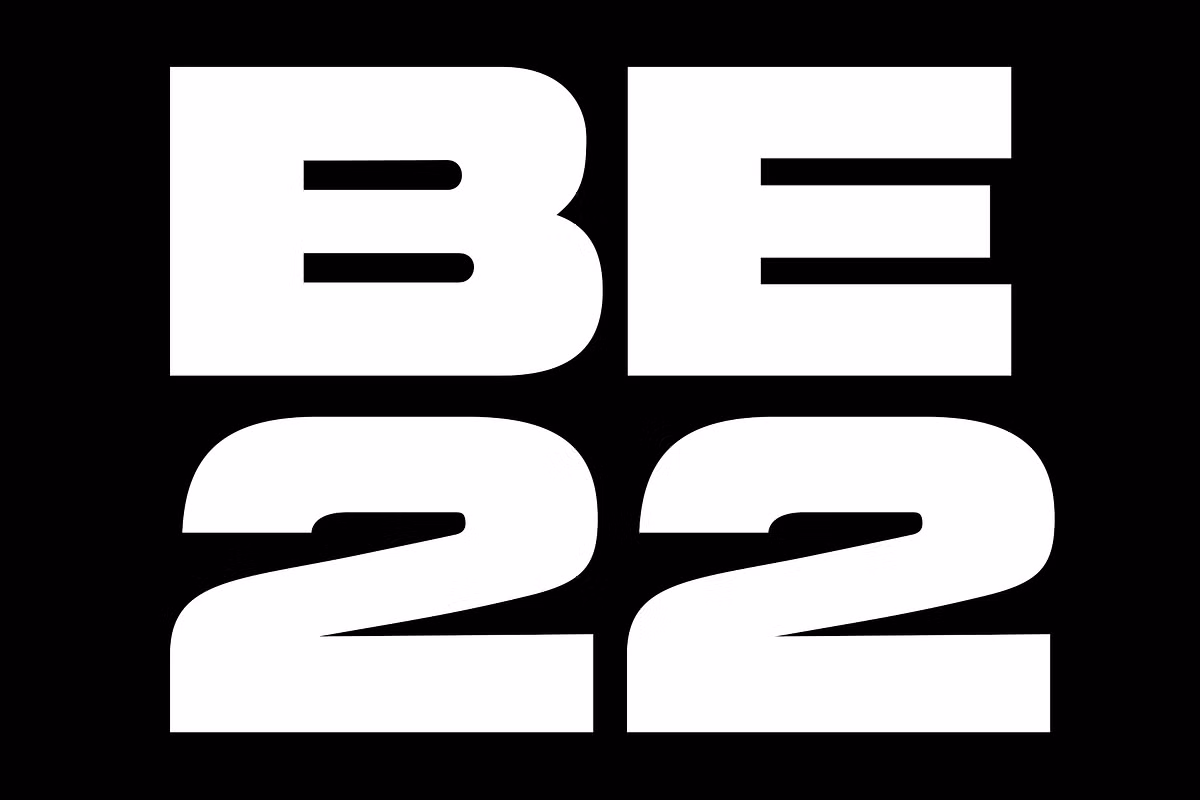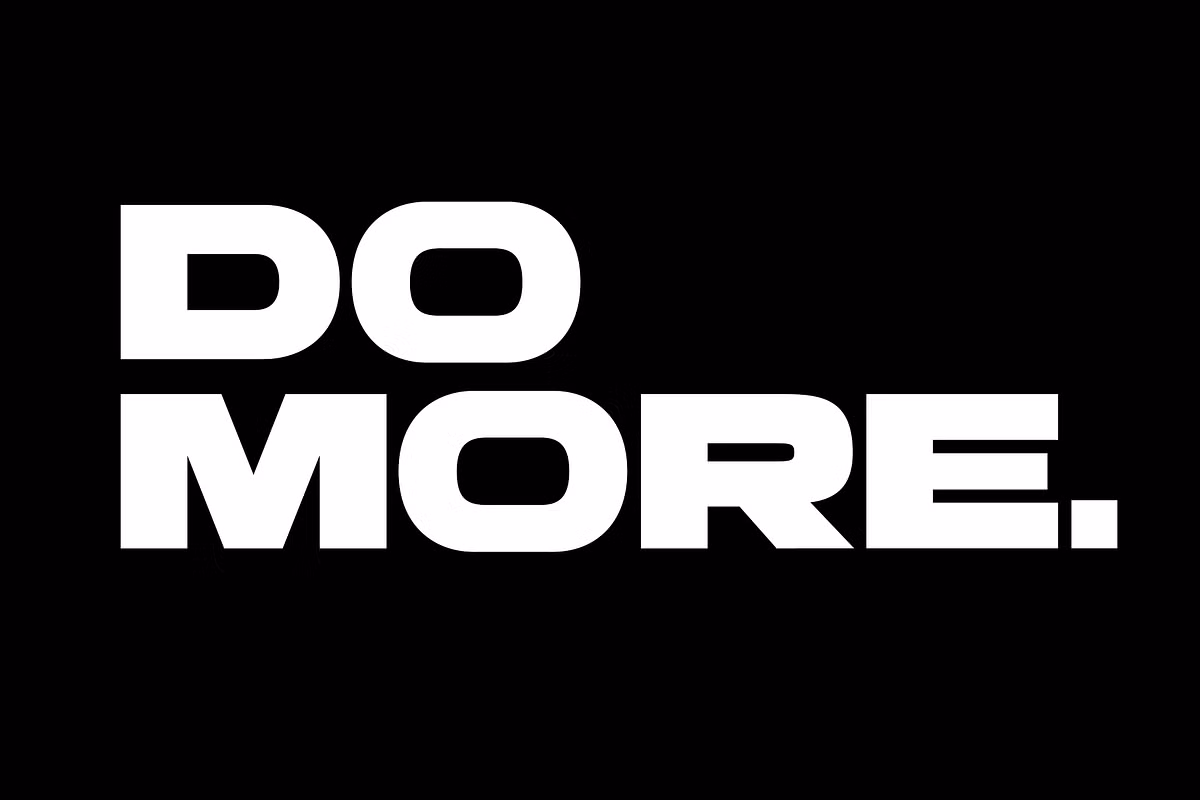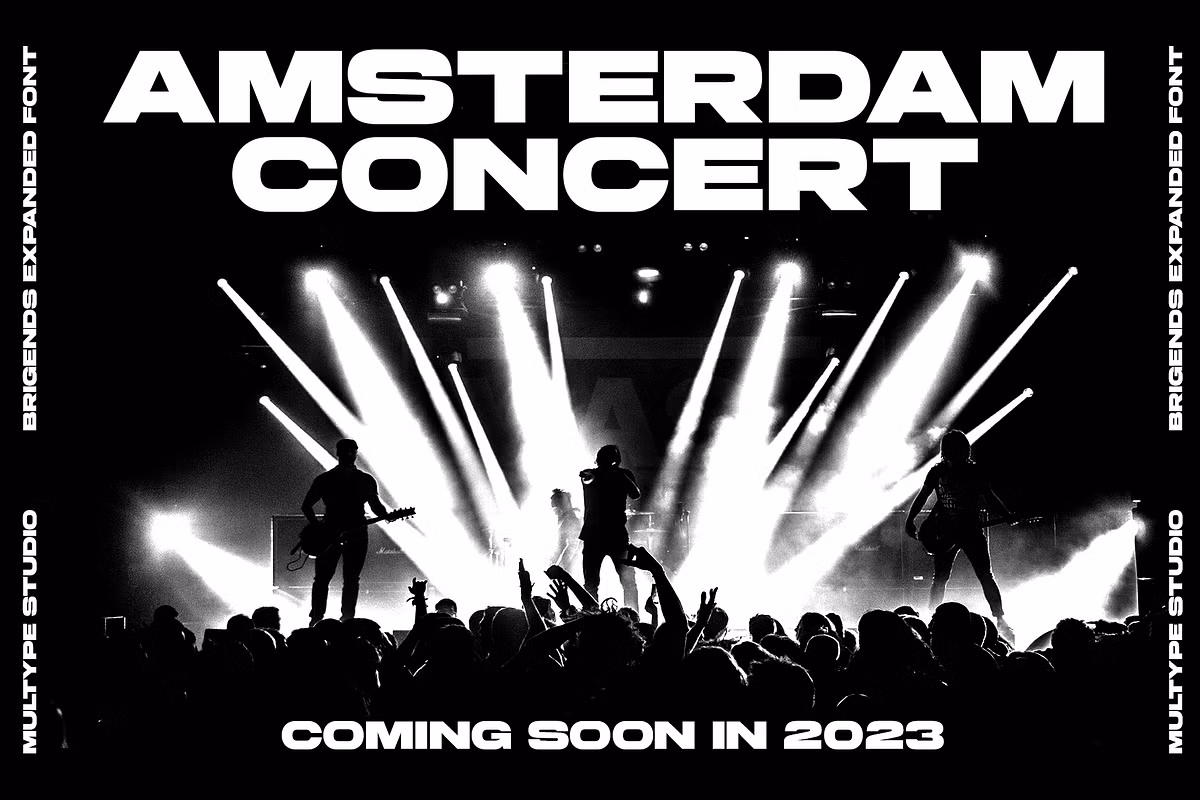
Brigends Expanded Font: Bold Sans Serif Typeface for Modern Design
Brigends Expanded is a really bold and modern font that grabs your attention. It has clean lines and a fresh look that makes it perfect for lots of design projects. If you’re making a logo, working on a brand’s image, or creating ads, this font adds a level of class and power to your work. Its simple yet strong style makes it a great choice for anyone looking to make a statement with their design. With Brigends Expanded, you can create something that looks sleek and professional, and that’s what makes it so useful for designers. It’s a font that can help you stand out and make your message heard.
Design Style of Brigends Expanded
The design style of Brigends Expanded embodies modernity and boldness. Its sans serif structure offers a clean and minimalistic look, which is highly sought after in today’s design landscape. The expanded letterforms provide a sense of spaciousness and clarity, making it an ideal choice for both print and digital media. This font conveys a sense of confidence and authority, which can enhance your branding and messaging.
What really makes Brigends Expanded stand out is how clear it stays, no matter what size you use it. This is super important for things like posters and social media, where you need the text to grab people’s attention and be easy to read at the same time. The font is bold, so it gets noticed, but it doesn’t overwhelm you. Its modern look makes it work well for lots of different industries – tech, fashion, and everything in between. Whether you’re creating something for a big company or a small startup, Brigends Expanded is a great choice because it’s versatile and easy to read. This makes it perfect for people who want a font that can handle anything from big headlines to small details, and still look great.
Character Sets and Versatility
Brigends Expanded is a really useful tool that has a big collection of characters, including all the uppercase letters, numbers, and symbols you might need. This means you can make all sorts of different designs, from big, bold headings to more intricate graphics with special touches. With Brigends Expanded, you’ve got lots of options to get creative and make your work look great. You can use it to add some style to your projects, and it’s got everything you need to make your designs stand out.
What’s really cool about this font is that it’s PUA encoded. This means you can use all the special characters you need without having to use any extra design software. It’s a big help for designers who work with different programs, as it makes the whole design process a lot simpler. Plus, Brigends Expanded is great for talking to people in different languages, because it supports multilingual typography. This makes it easy to reach a lot of people, no matter where they’re from.
Use Cases for Brigends Expanded
Brigends Expanded is really useful and can be used in lots of different situations. Let’s take a look at some of the ways it can be applied:
- Logos and Branding: The bold nature of Brigends Expanded makes it perfect for creating memorable logos that stand out in the marketplace.
- Promotional Materials: Use this font in flyers, brochures, and advertisements to draw attention and convey key messages effectively.
- Posters: Big, bold lettering makes your message stand out and easy to read, even from far away.
- Book Covers and Magazine Layouts: For authors and publishers, Brigends Expanded can enhance titles and cover designs, making them more appealing to readers.
- Social Media: Use this font for headings and titles to create a consistent and professional look across all your platforms.
- Movie Titles: The strong presence of Brigends Expanded makes it an excellent choice for film titles, ensuring they capture the essence of the movie.
When it comes to pairing fonts with Brigends Expanded, you want to complement its boldness while ensuring legibility. Here are some pairing suggestions:
- Light Serif Fonts: Pair Brigends Expanded with a light serif font like Playfair Display for a striking contrast between modernity and tradition.
- Simple Sans Serif Fonts: Pair it with a simple sans serif font like Open Sans or Lato for a clean and easy-to-read look.
- Fancy Script Fonts: Match it with a fancy script font like Great Vibes or Pacifico for a personal touch in invitations or branding.
So, Brigends Expanded is a pretty cool font – it’s a bold sans serif typeface that can really make your designs stand out. It’s got a lot of great features, like a versatile character set and the ability to work with lots of different design software. This makes it super useful for designers who want to create visuals that really pack a punch. Whether you’re working on a brand, making promotional materials, or creating digital content, Brigends Expanded can help you get your message across in a clear and stylish way. We think you’ll really like using this font, and we’re glad you’re considering it for your design projects. With its modern look and feel, Brigends Expanded is a great choice for anyone who wants to add some strength and style to their designs.